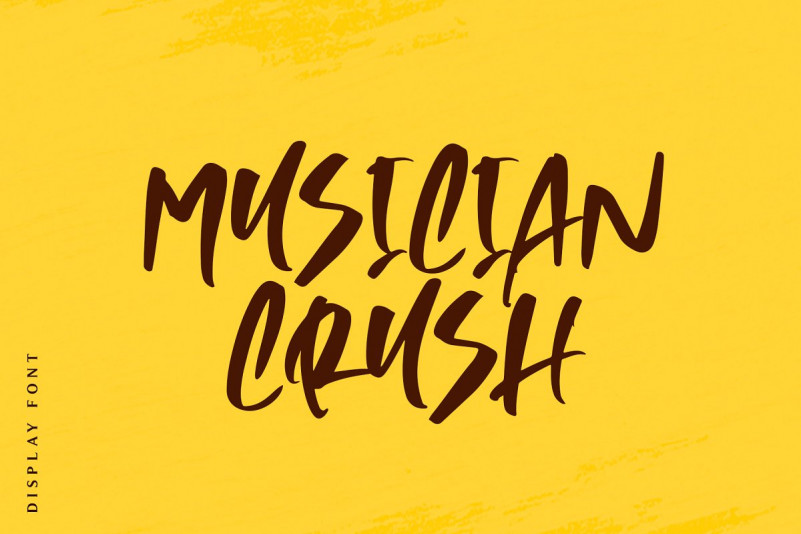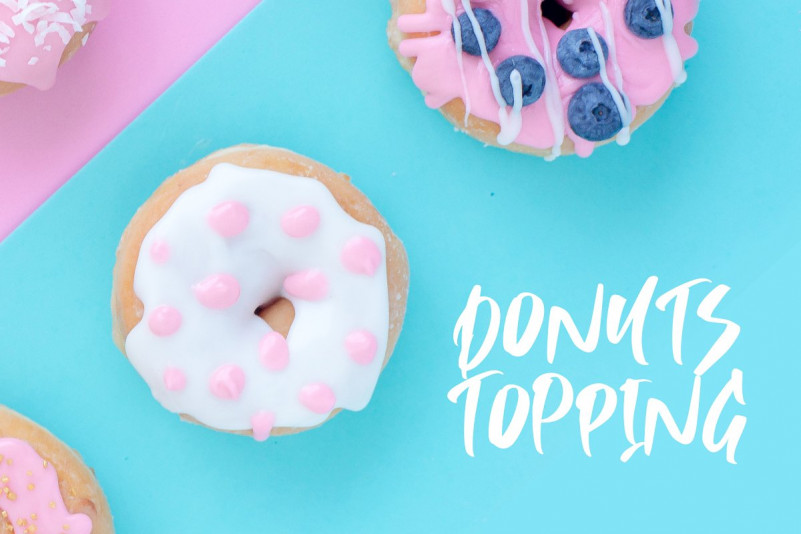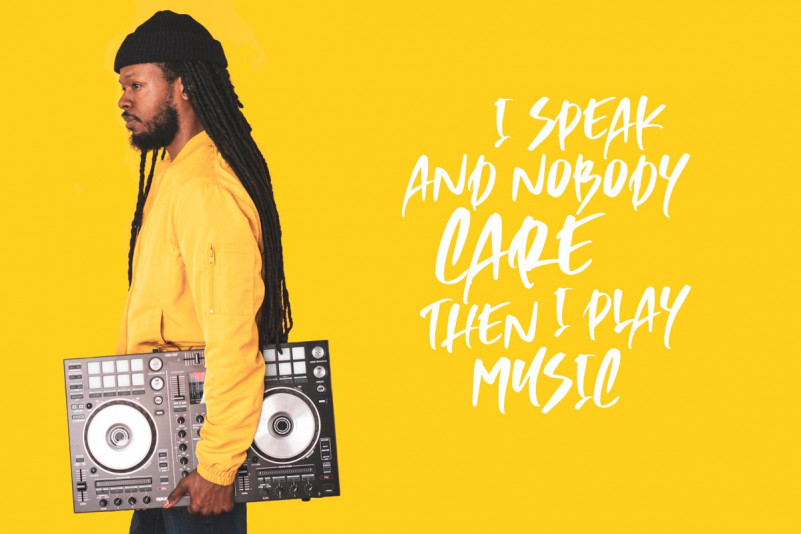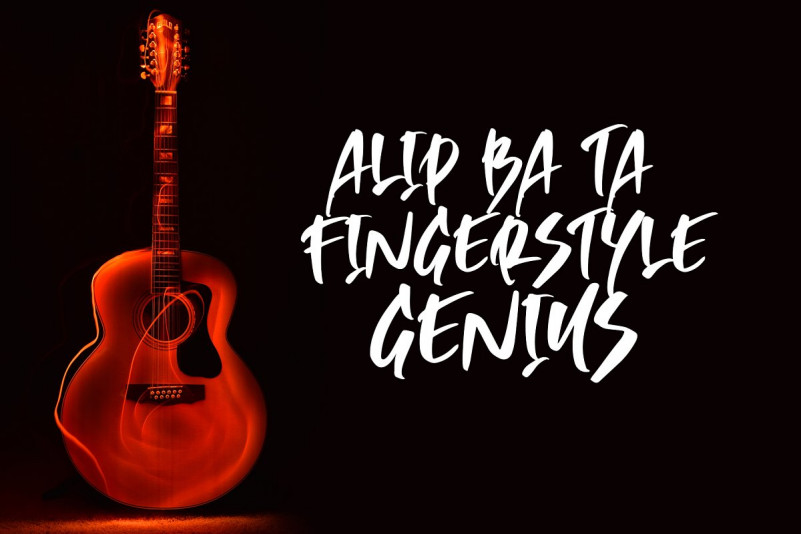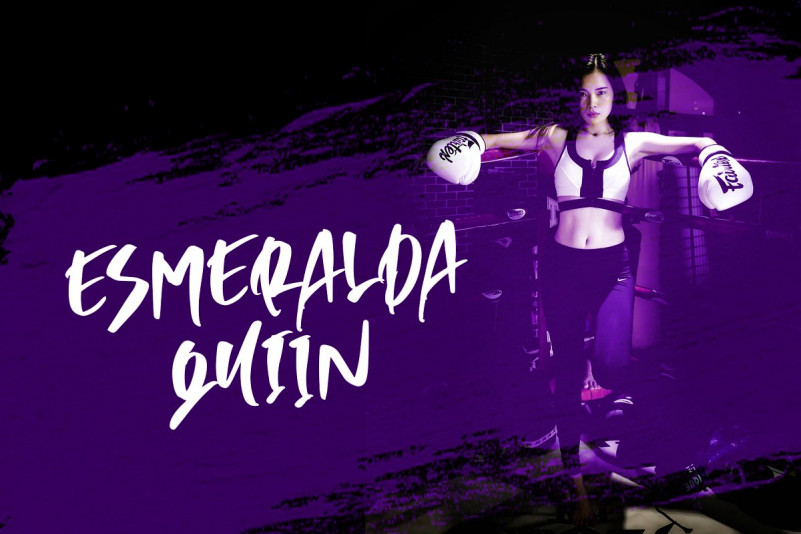
Musician Crush Script Font
Dear All. This is a bold script typeface which is simple yet casual. A bold handmade lettered Font that comes. Take your design game to the next level with a bold, thick and expressive font that truly looks hand painted. Introducing Musician Crush Script Font. It’s designed and shared by Motokiwo. It’s a vibrant and attractive display font with urban style. This All Caps typeface is strong to stand out over your design project. You’ll find natural handwriting feel, because Musician Crush packed with ligatures, also multilingual support and PUA Encoded.